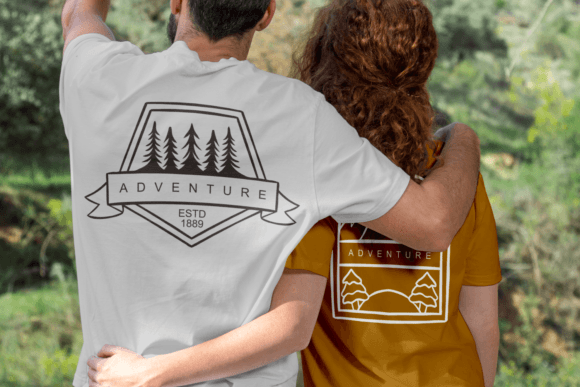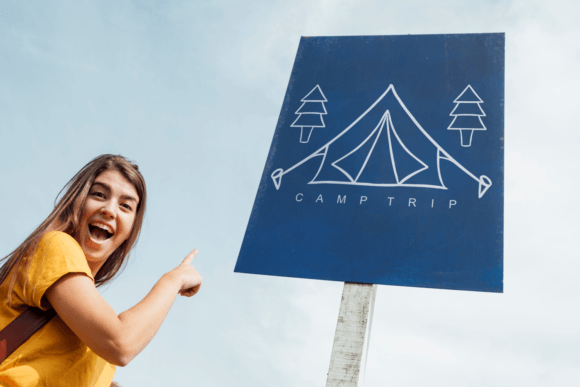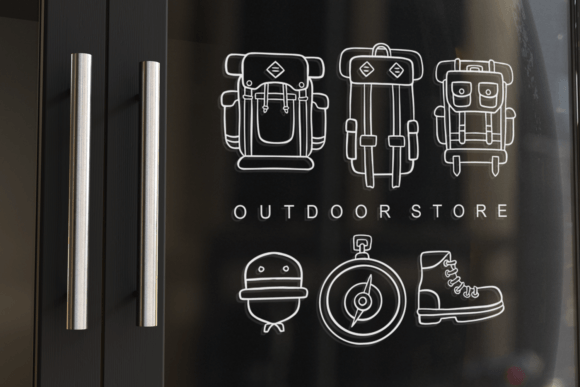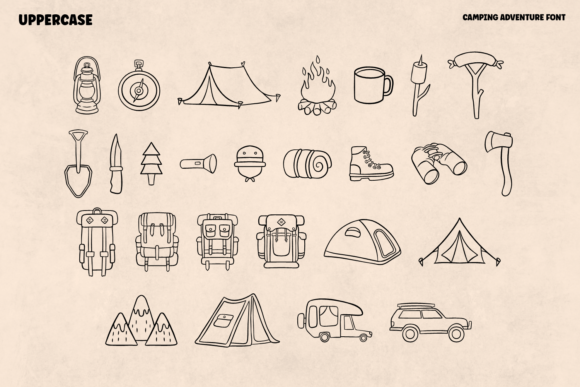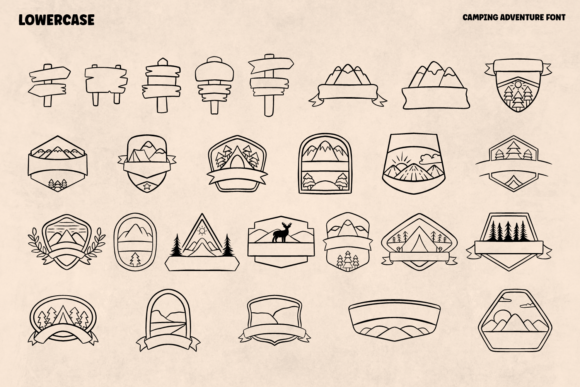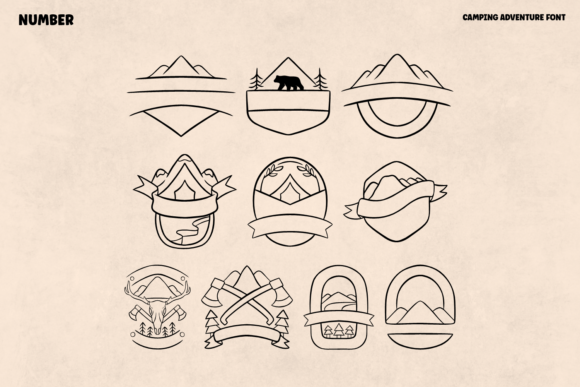
Camping Adventure Font: Elevate Your Outdoor-Themed Designs
Are you an outdoor enthusiast, a designer, or a crafter looking for a unique and exciting font to bring your camping-themed projects to life? Look no further than the Camping Adventure Font, a specially designed dingbats font that captures the essence of the great outdoors. In this article, we’ll dive into the features and benefits of this fantastic font and explore how it can elevate your designs and inspire your creativity.
What is Camping Adventure Font?
Camping Adventure Font is a carefully crafted outdoors and hiking-themed dingbats font that includes a wide range of glyphs and symbols to help you create stunning typography for your camping-themed projects. From badges and tools to equipment and more, this font has everything you need to add a touch of adventure and excitement to your designs.
Key Features of Camping Adventure Font
- Outdoor-themed glyphs: The font includes a vast array of outdoor-themed glyphs, including badges, tools, equipment, and more, to help you create authentic and engaging designs.
- Versatile: The font is perfect for a wide range of applications, including clothing items, camping signs, websites, advertising materials, and more.
Camping Adventure Font is an ideal choice for designers and crafters who want to add a touch of adventure and excitement to their outdoor-themed projects. Whether you’re creating custom apparel, signs, or promotional materials, this font is sure to impress. The font’s versatility and ease of use make it perfect for a wide range of applications, from commercial projects to personal crafting endeavors.
Use Cases for Camping Adventure Font
- Camping gear and apparel: Use the font to create custom t-shirts, hats, and other gear for your camping adventures.
- Camping signs and banners: Create eye-catching signs and banners for your campsite or outdoor events.
- Outdoor advertising: Use the font to create compelling advertising materials for outdoor gear and services.
- Web design: Add a touch of adventure to your outdoor-themed website with custom typography.
Why Choose Camping Adventure Font?
With so many fonts available, why choose Camping Adventure Font? Here are just a few reasons:
- Unique and authentic: The font’s outdoor-themed glyphs and symbols are unique and authentic, adding a touch of excitement and adventure to your designs.
- High-quality design: The font is carefully crafted with high-quality design principles in mind, ensuring that your designs look professional and polished.